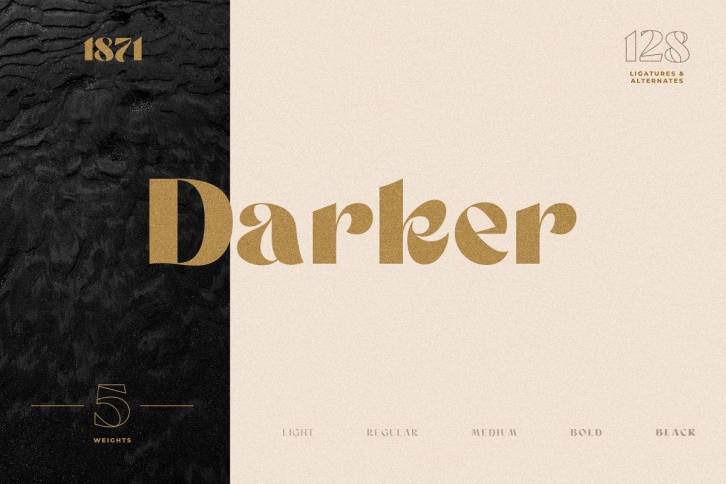
Introducing Darker Sans Serif + Extras our new bold minimal elegant modern vintage sans serif font! It features beautiful uppercase and lowercase ligatures, 5 weights, tons of special alternative glyphs, and a ton of extra custom The's! Darker is extremely versatile and will work great for branding projects, posters, magazine covers, or any project that calls for an elegant sans serif!
Are you always looking for the perfect script "The" to pair with your logo type? Darker comes with 14 different The's in stroke and object format so you can customize and edit the shapes for something completely unique!
• 5 Weights
• Lowercase and Uppercase
• Stylistic Alternates & Ligatures
• Beautiful curves and edges
• Numerals & Punctuation
• 14 Extra The's
• Accented characters
• Multiple Languages Support